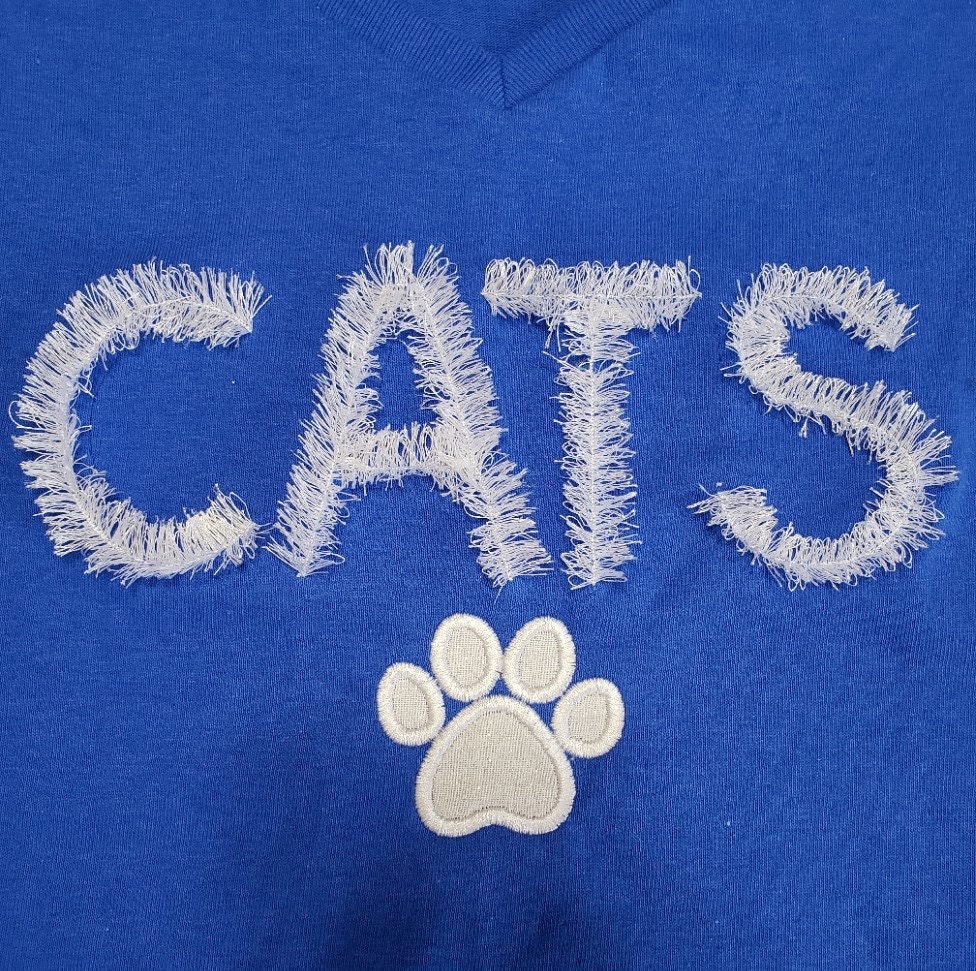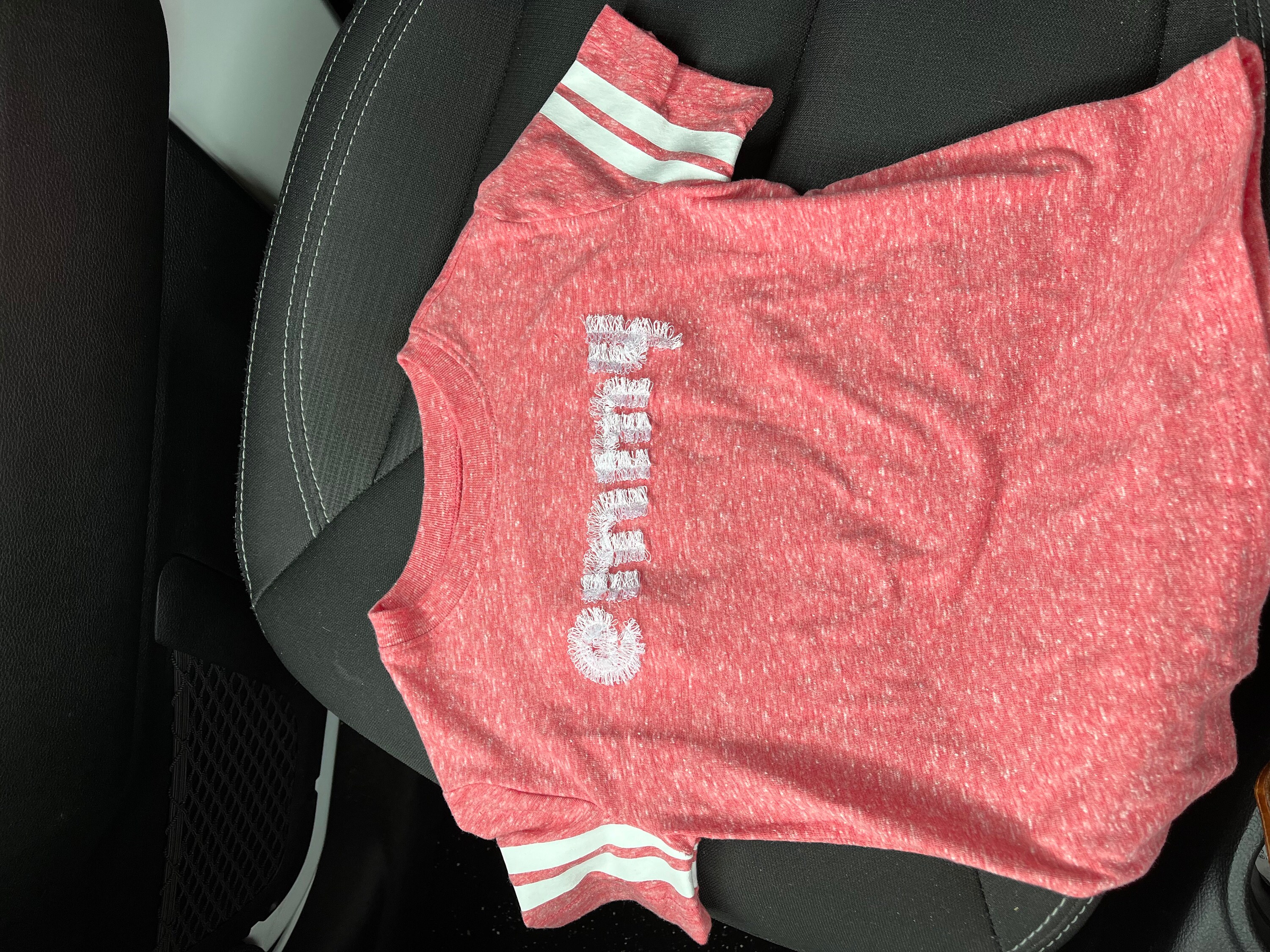
Cute fluffy fringed FONT machine embroidery designs in assorted sizes, girly pretty fluffy letters and punctuation marks, BX font included
You may fringe all letters. Please view images on how-to.
Entire alphabet A - Z uppercase and lowercase, and punctuation marks.